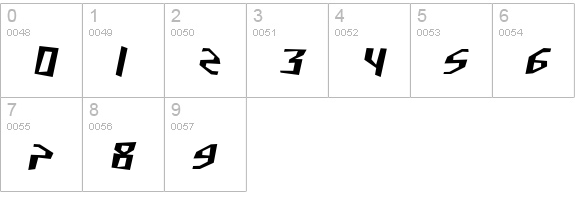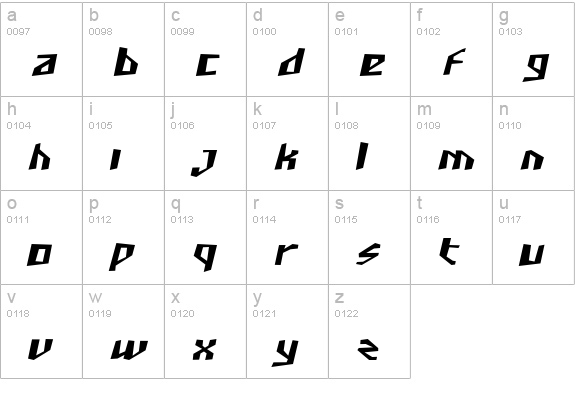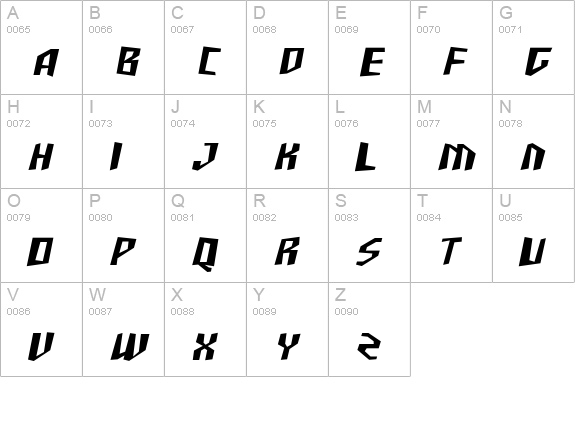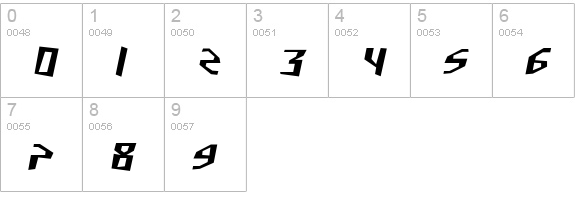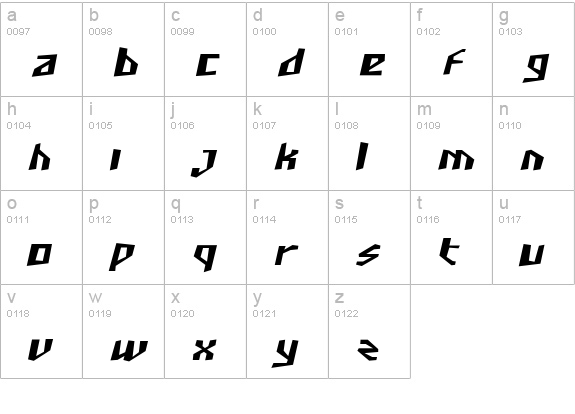
SF Junk Culture Oblique Font Details
SF Junk Culture Oblique is a distinctive, italic variant in the SF typeface family \xE2\x80\x94 well suited to design and typography projects.
Introducing SF Junk Culture Oblique font, a captivating typeface that perfectly captures the essence of the urban, futuristic, and rebellious spirit. This unique font is a delightful fusion of sleek lines, sharp angles, and a distinct edginess that brings a refreshing and modern twist to your designs. SF Junk Culture Oblique font is the result of a brilliant collaboration between talented designers and typographers who sought to create a truly innovative and eye-catching font. Its unconventional letterforms are imbued with a sense of energy and dynamism, making it an ideal choice for projects that require a bold statement or a touch of avant-garde creativity. The free availability of SF Junk Culture Oblique font at FontsMarket.com allows designers, artists, and enthusiasts alike to freely explore and experiment with its endless possibilities. Whether you're working on a cutting-edge logo, a striking poster, or a mind-bending album cover, this font will undoubtedly elevate your design to new heights. With its versatile nature, SF Junk Culture Oblique font seamlessly adapts to a variety of creative contexts. It effortlessly conveys a sense of urban sophistication, making it perfect for fashion magazines, streetwear brands, or any design that seeks to tap into the pulse of contemporary culture. The carefully crafted details of SF Junk Culture Oblique font ensure legibility and readability, even in smaller sizes. Its distinctive aesthetic elements make it an excellent choice for headlines, titles, or any design element that demands attention. Embrace the bold, the unconventional, and the limitless possibilities of SF Junk Culture Oblique font. Download it freely at FontsMarket.com and unleash your creativity like never before. Let this extraordinary typeface become the driving force behind your next design venture, leaving a lasting impression on your audience and setting your work apart from the rest.